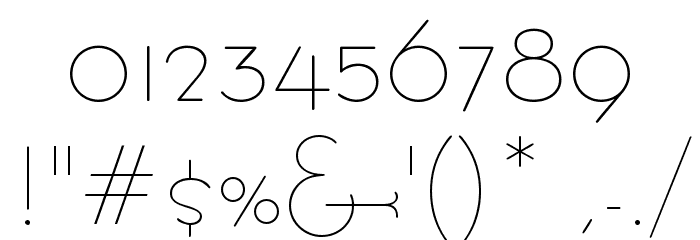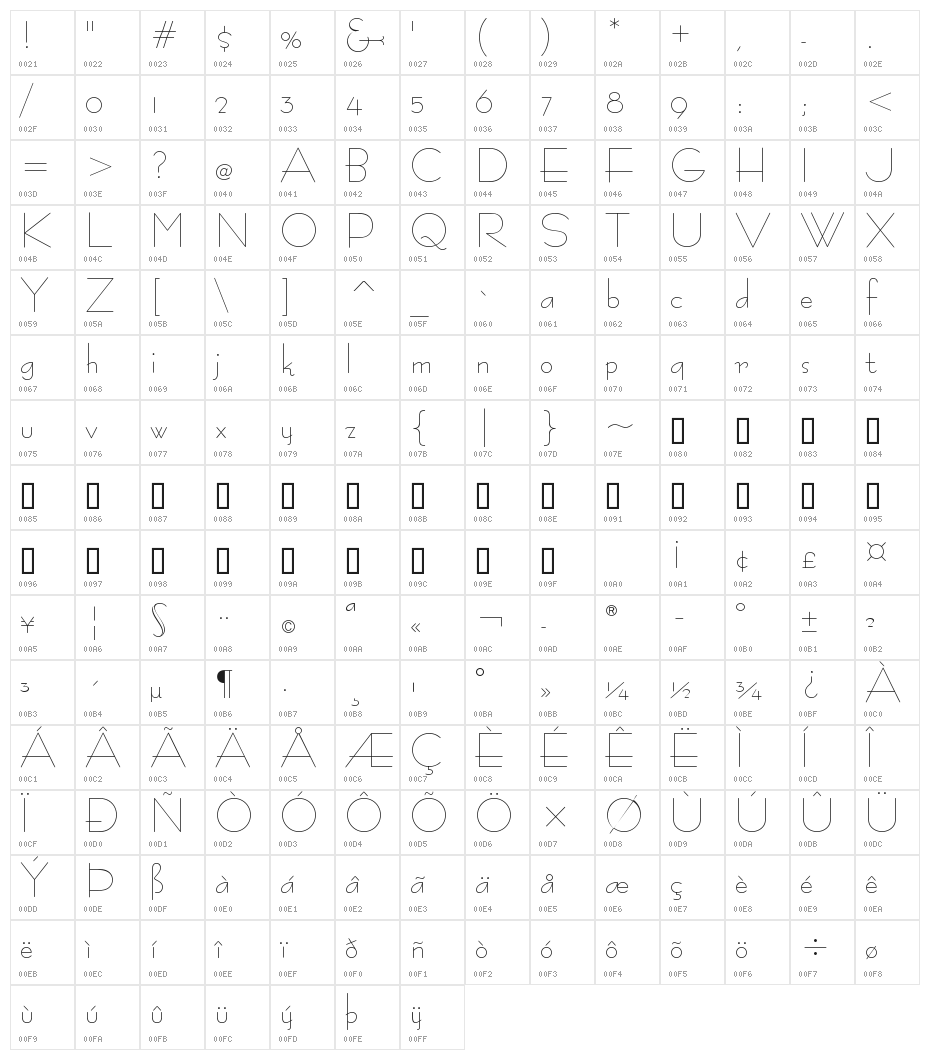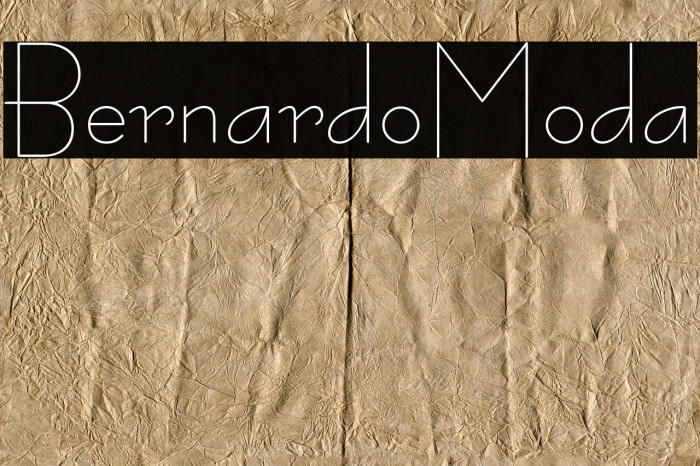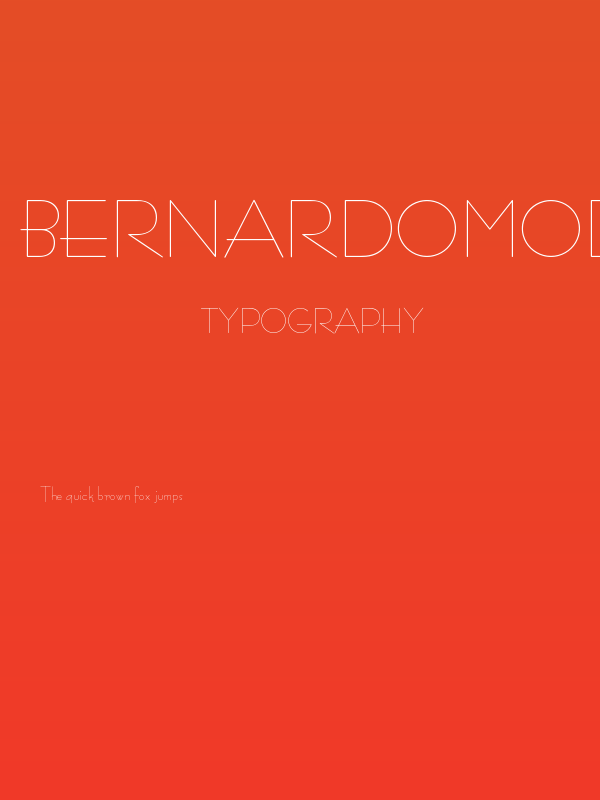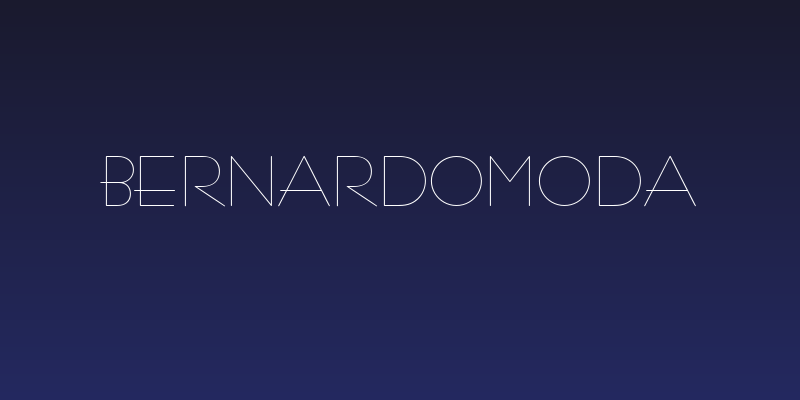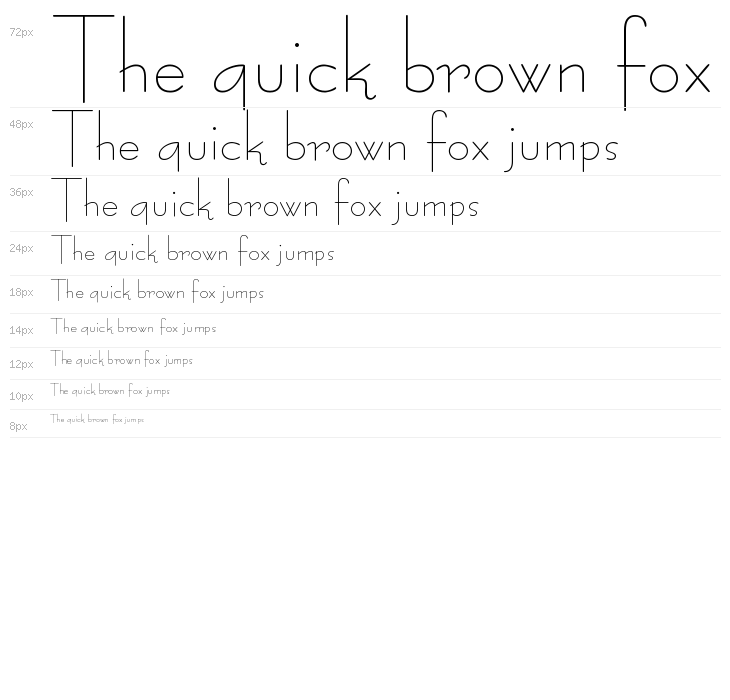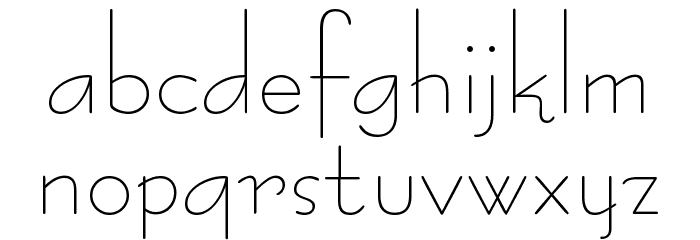
BernardoModa Font
BernardoModa Description
This font features a minimalist and elegant design, characterized by thin, consistent strokes and a geometric structure. The uppercase letters are tall and slender, with a modern aesthetic that emphasizes simplicity and clarity. The lowercase letters maintain a similar style, with a slightly more playful and approachable feel due to their rounded forms. Numbers are clean and easy to read, matching the overall sleek appearance of the alphabet. Special characters are designed with the same attention to detail, ensuring a cohesive look across all elements. The font's uniform line weight and open spacing contribute to its readability, making it suitable for a variety of design applications.
| Proposed Projects | Ideal for branding, editorial design, and digital interfaces where a clean, modern look is desired. |